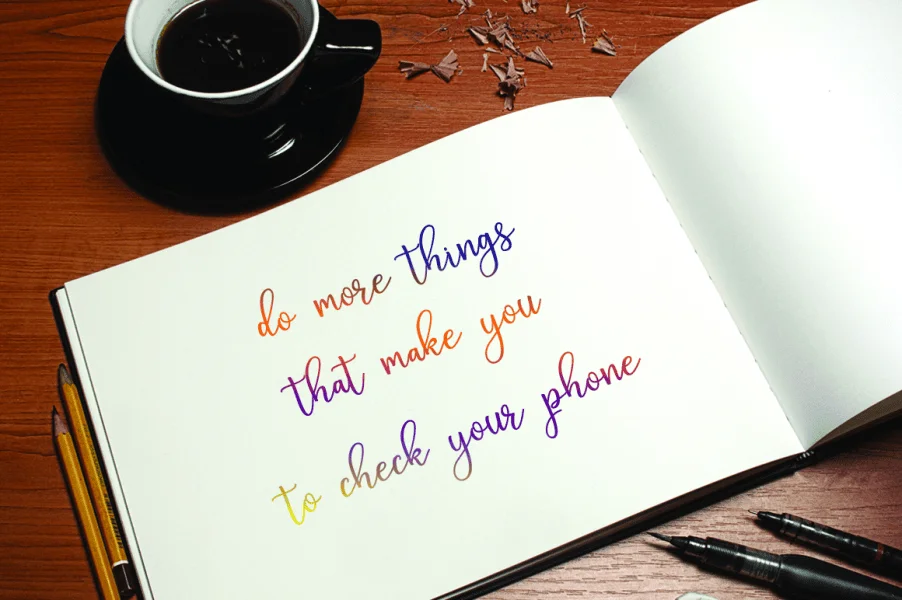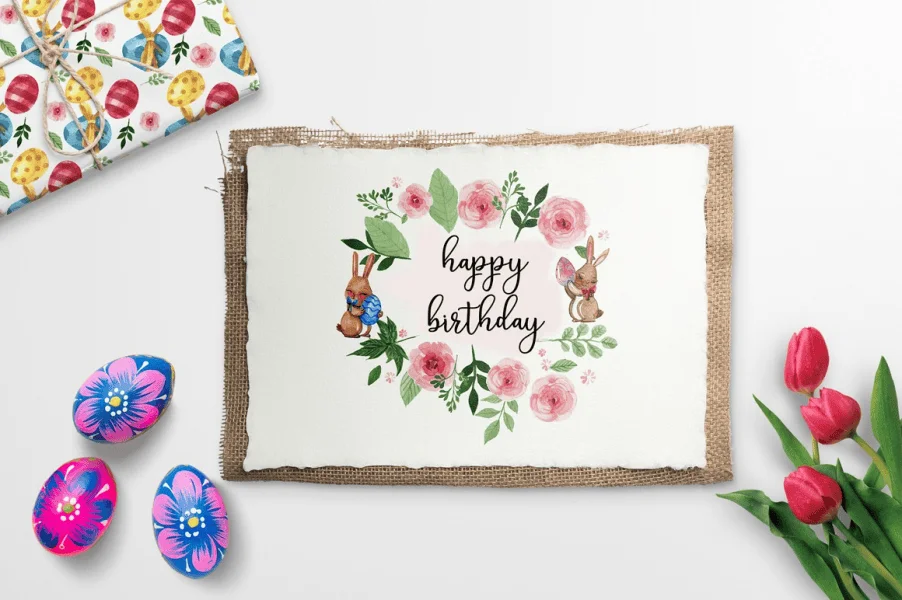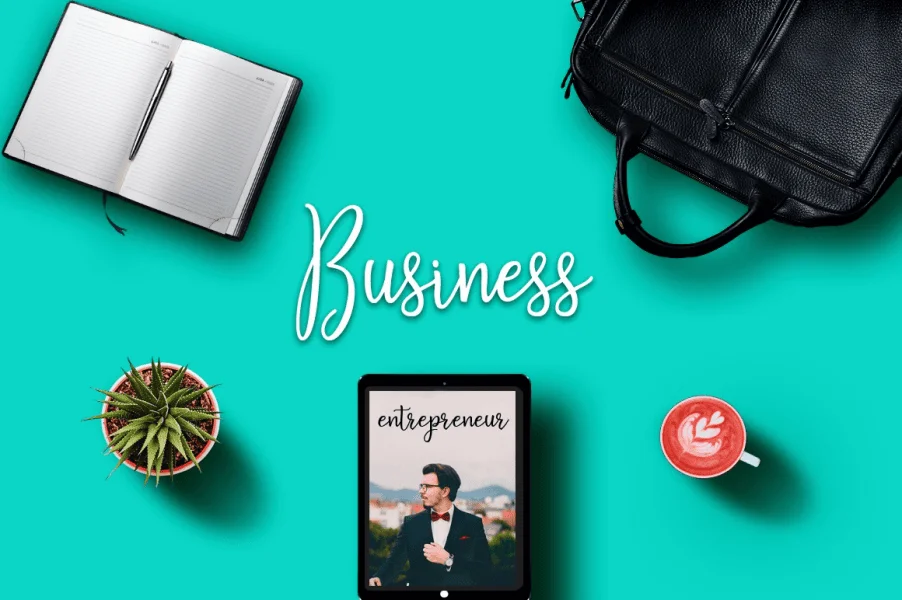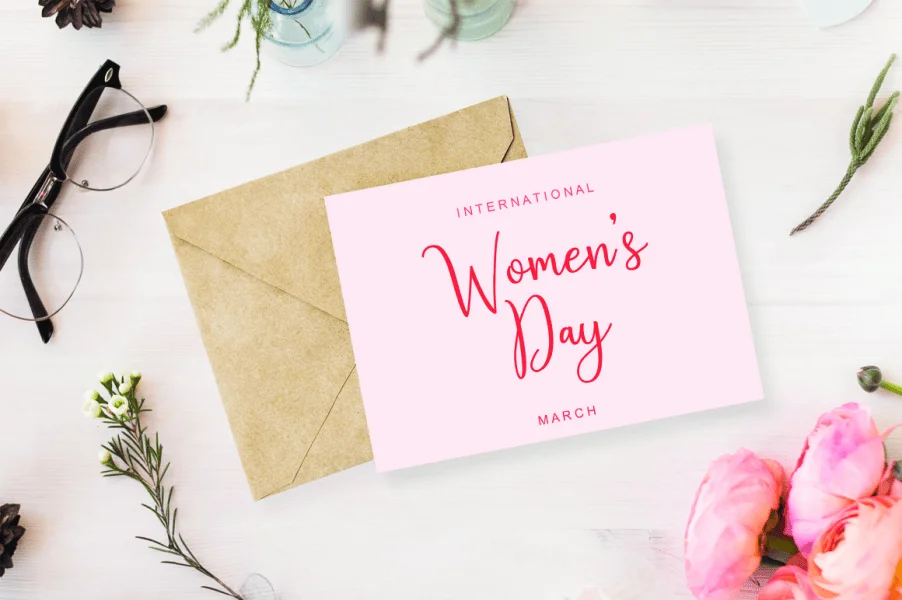
Aldabela is a contemporary calligraphy typeface defined by its fluid, hand-drawn posture and elegant, looping connections. It features a medium contrast in stroke weight, balancing slender, sweeping entry lines with more robust downstrokes that give each word a rhythmic, organic flow. The letterforms are tall and expressive, characterized by sweeping ascenders and descenders that suggest the natural movement of a brush pen on paper. This gives the typeface a warm, personal, and sophisticated texture that feels both casual and refined.
This typeface is exceptionally well-suited for design applications that require a touch of human warmth and elegance. It excels in social stationery, wedding invitations, greeting cards, and editorial mastheads. Additionally, Aldabela lends a stylish, artisanal quality to lifestyle branding, boutique packaging, and promotional graphics where a personal, handcrafted signature is desired.